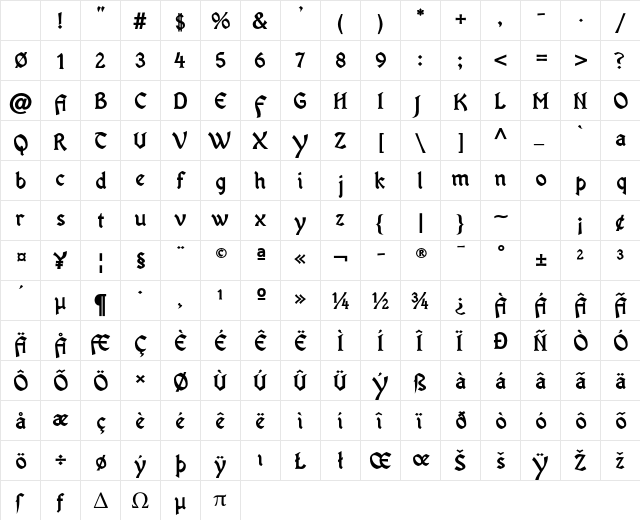
Oldania ADF Std is a composed and adaptable typeface that performs quietly and consistently across a wide range of design contexts. Its bold stroke weight gives it real presence on the page.